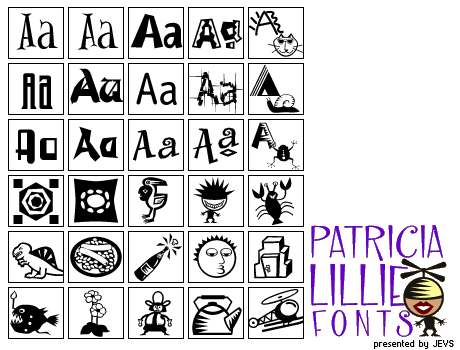
Patricia Lillie - Complete Fonts Collection
Along with producing popular shareware fonts in the 1990s, Patricia Lillie designed several dozen typefaces and wonderful picture fonts for foundries such as Image Club, EyeWire, T.26, and ITC.